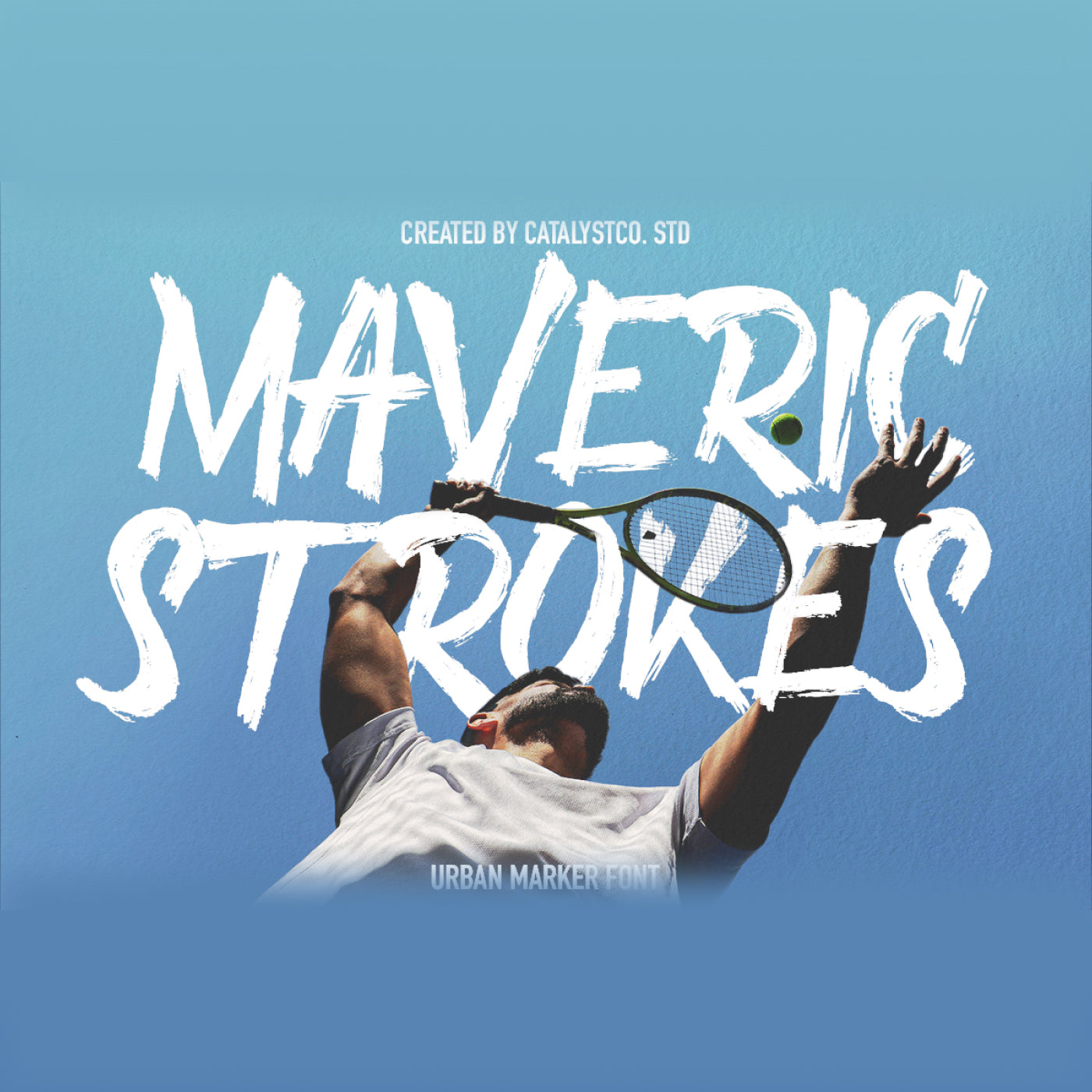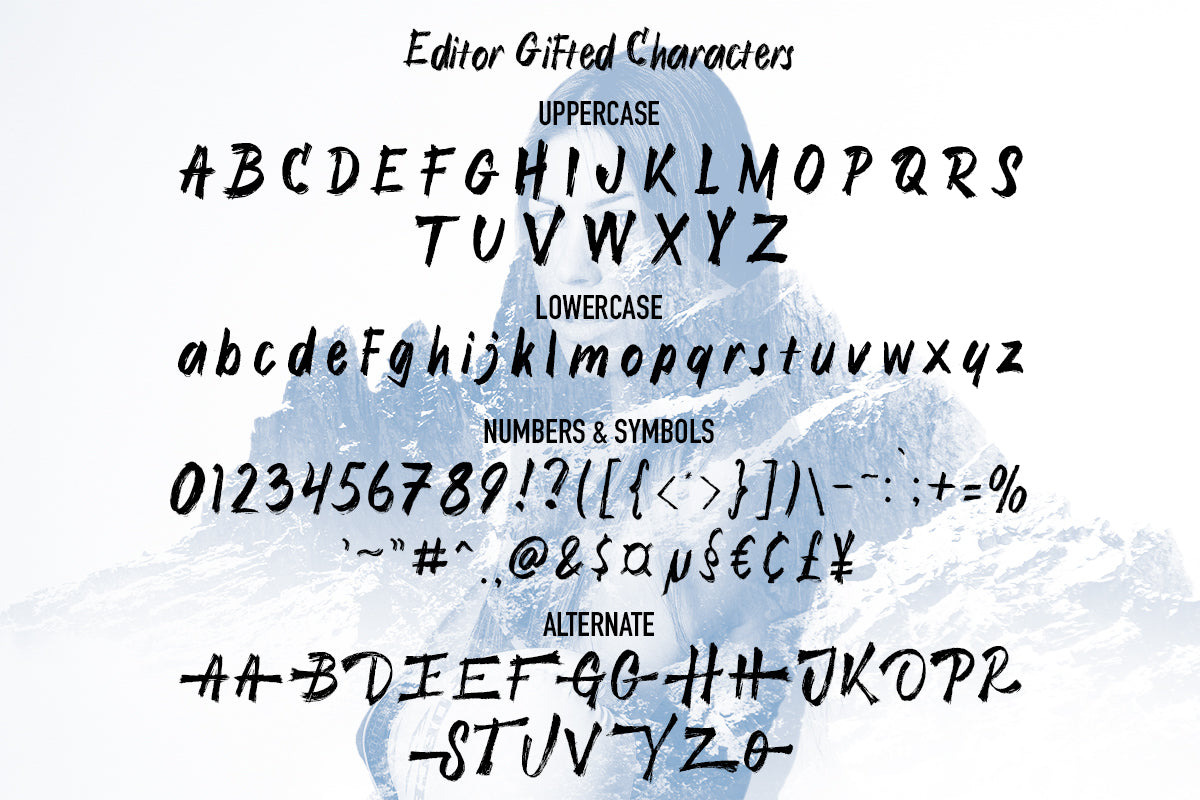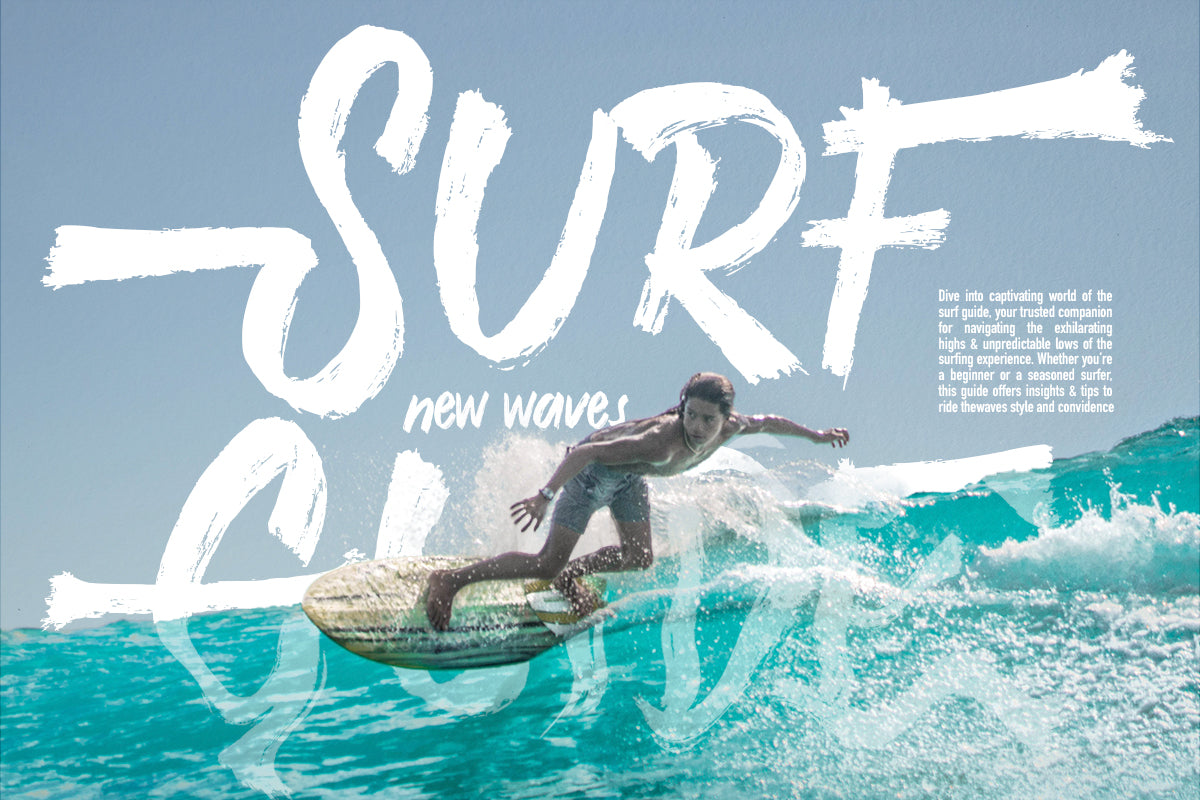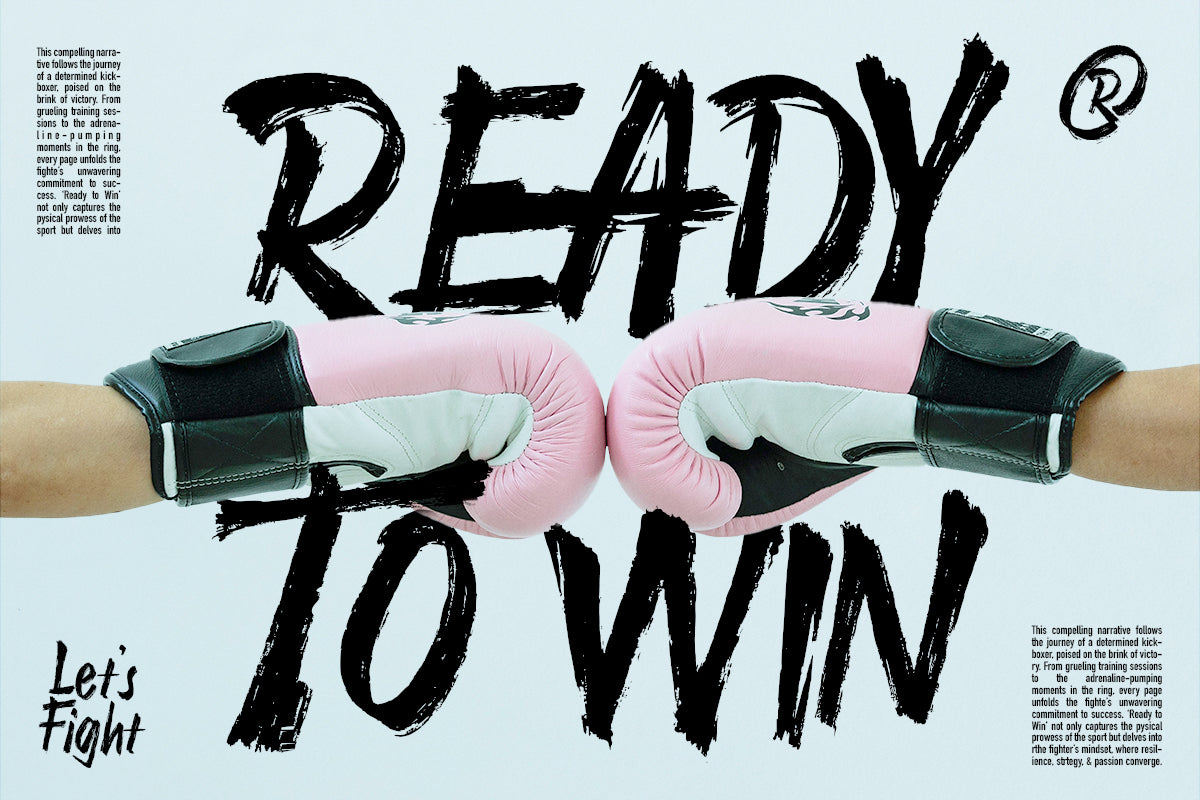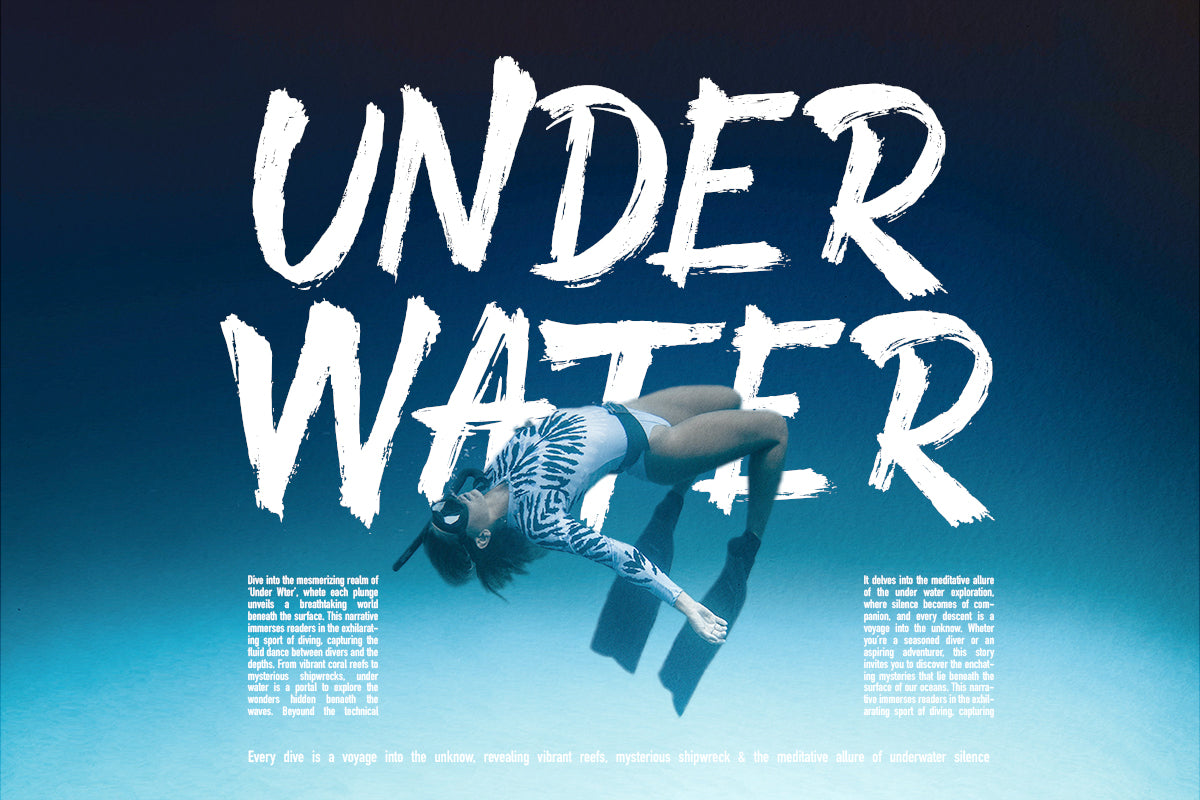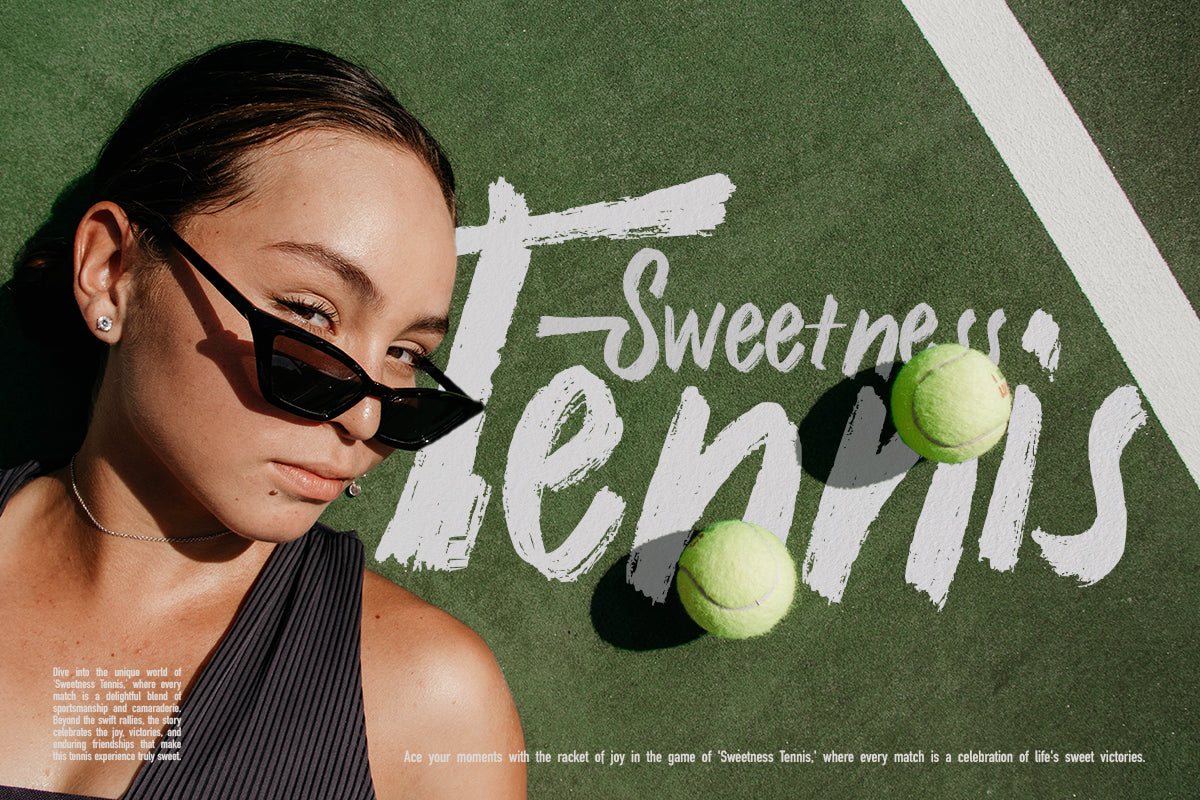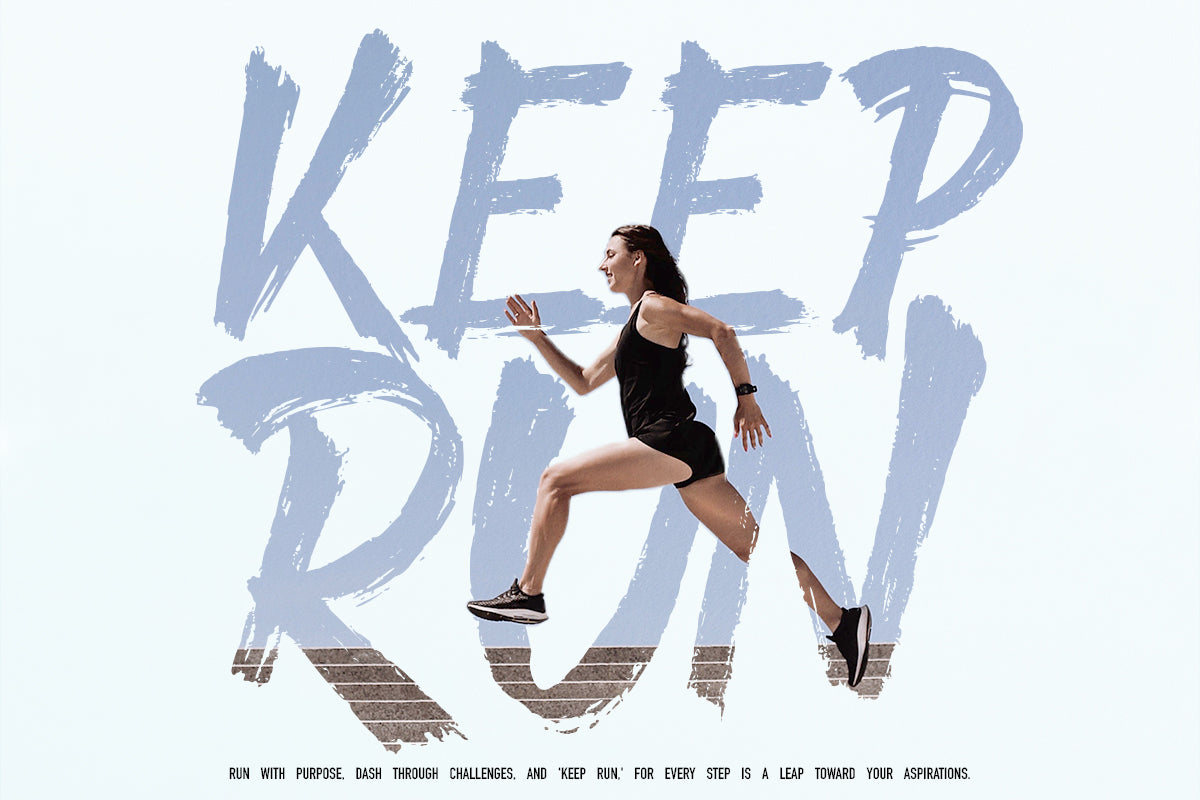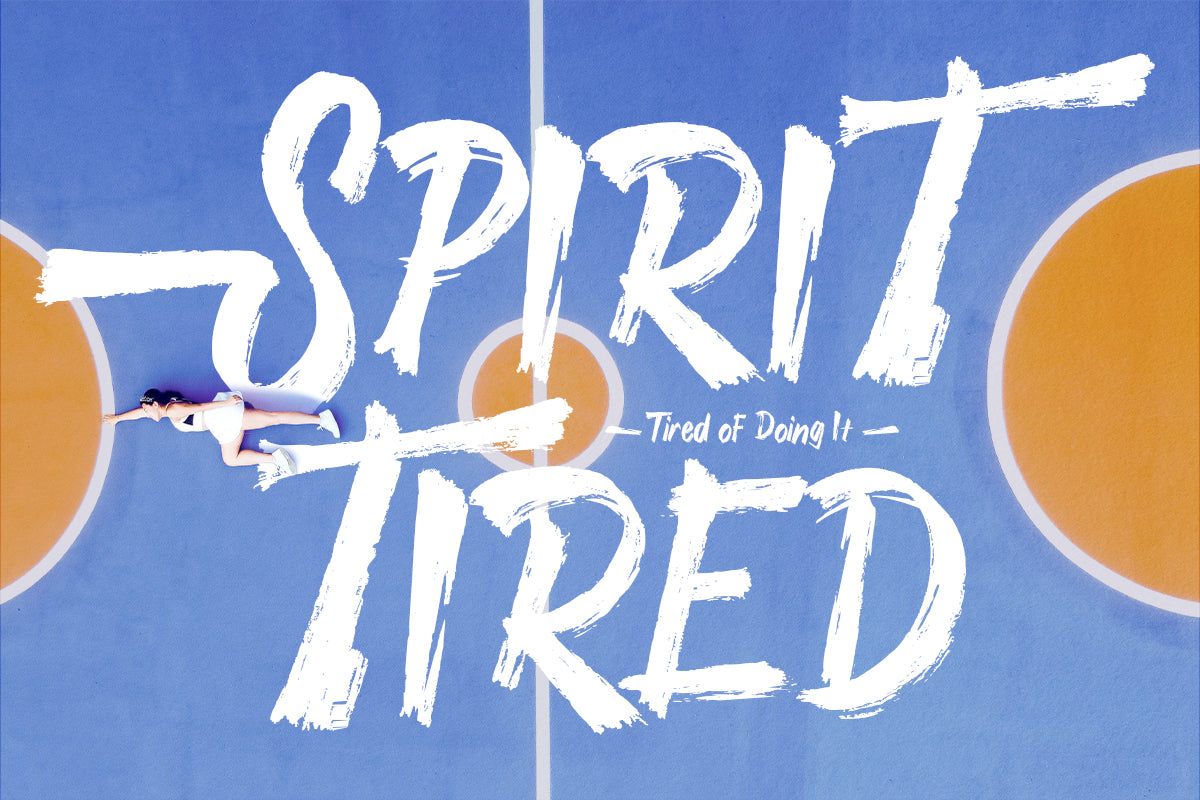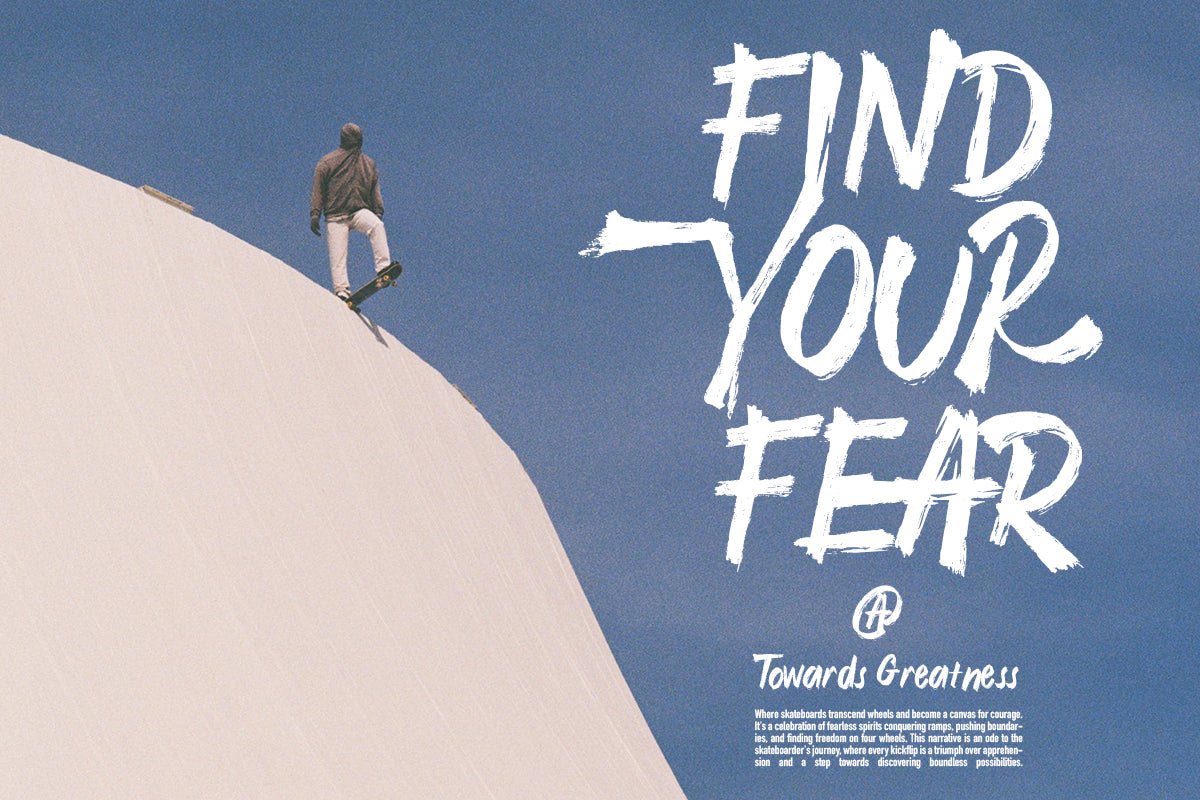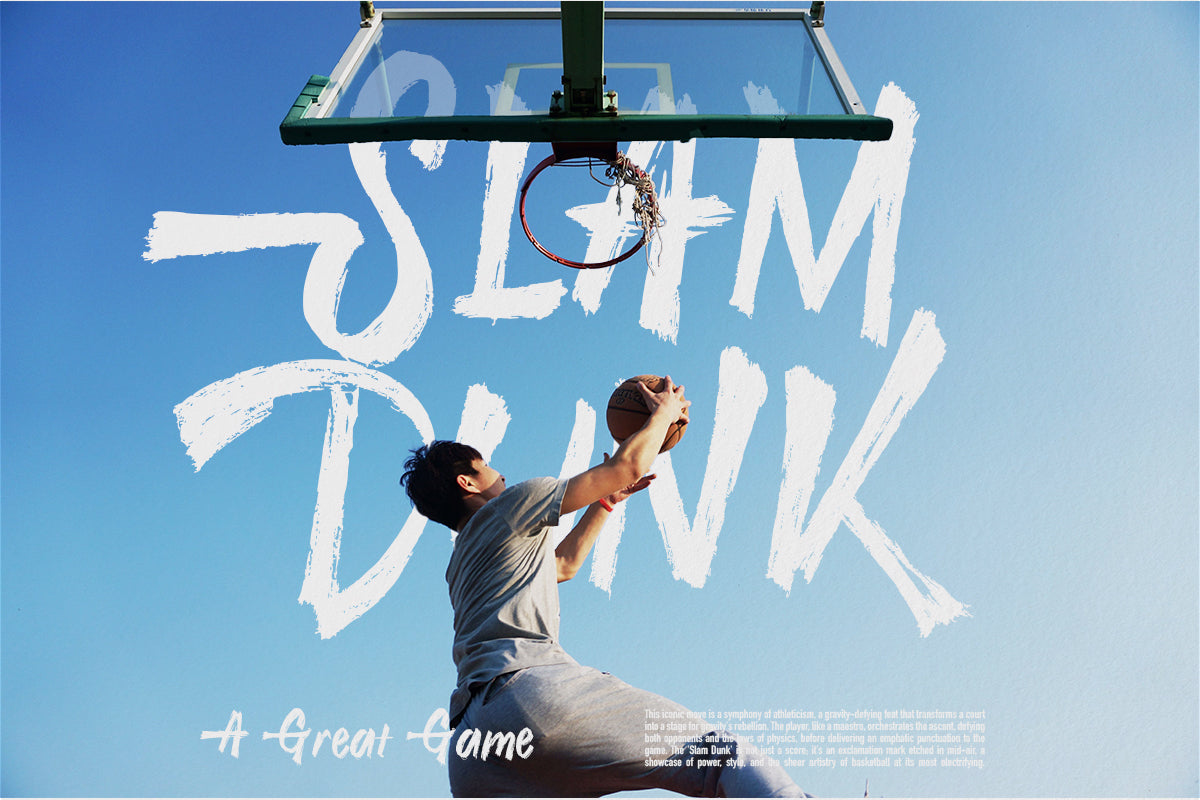
Maveric Strokes Urban Marker Font
Maveric Strokes is an urban marker font with energetic dry-brush textures, strong movement, and expressive hand-drawn strokes. Designed to capture the raw intensity of marker lettering, it delivers a bold visual impact perfect for athletic branding, streetwear design, music posters, and dynamic advertising. Its rugged texture and spontaneous brush feel create a powerful, modern personality in every layout.
Featuring uppercase, lowercase, punctuation, numerals, and alternates, Maveric Strokes allows flexible styling for bold headlines, sporty compositions, and creative display needs. Whether for sports campaigns, editorial visuals, or urban-inspired artwork, this premium brush font brings speed, action, and attitude to your typography.
Maveric Strokes Urban Marker Font is a hand-drawn brush typeface featuring dry-brush textures and marker-style strokes, available in TTF, OTF, and WOFF formats. It includes uppercase and lowercase letters, numerals, punctuation, alternates, and multilingual support.